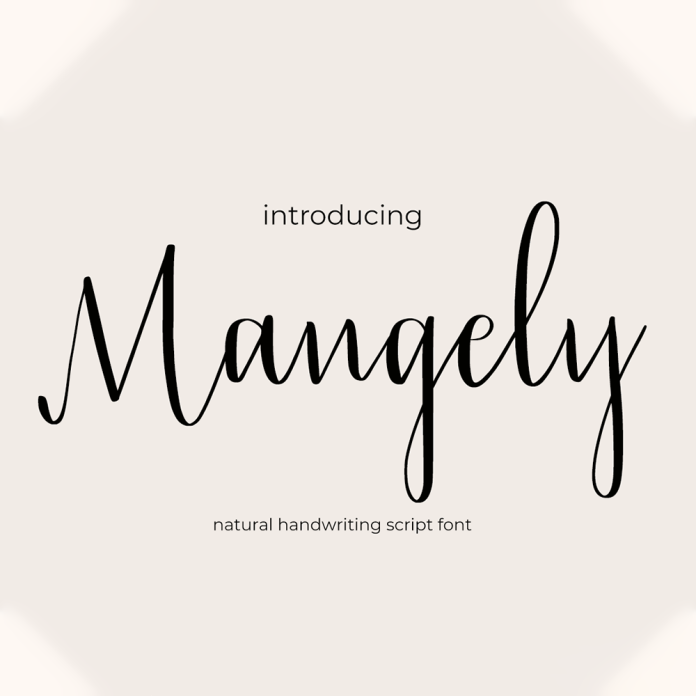
Mangely font is a modern script brush font with a unique, handcrafted style. Its fluid strokes and elegant curves make it perfect for adding a touch of sophistication to any design project. Ideal for logos, branding, invitations, and more.